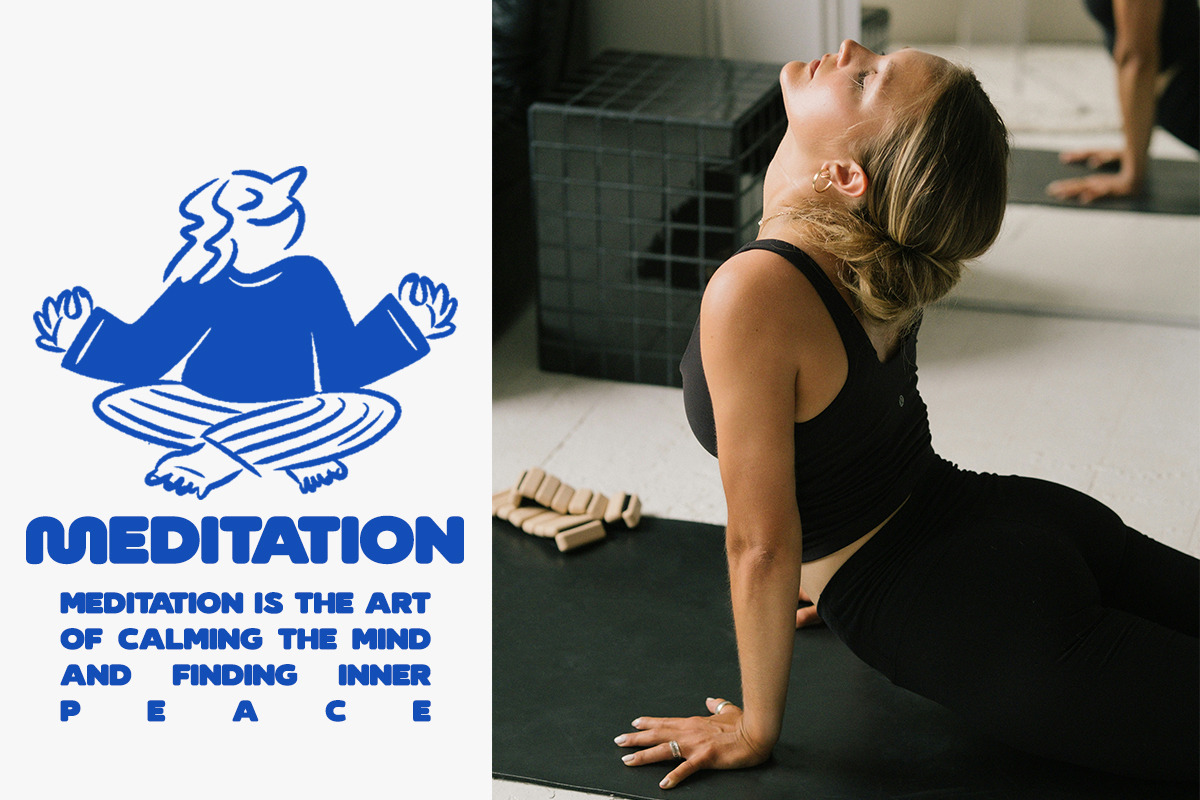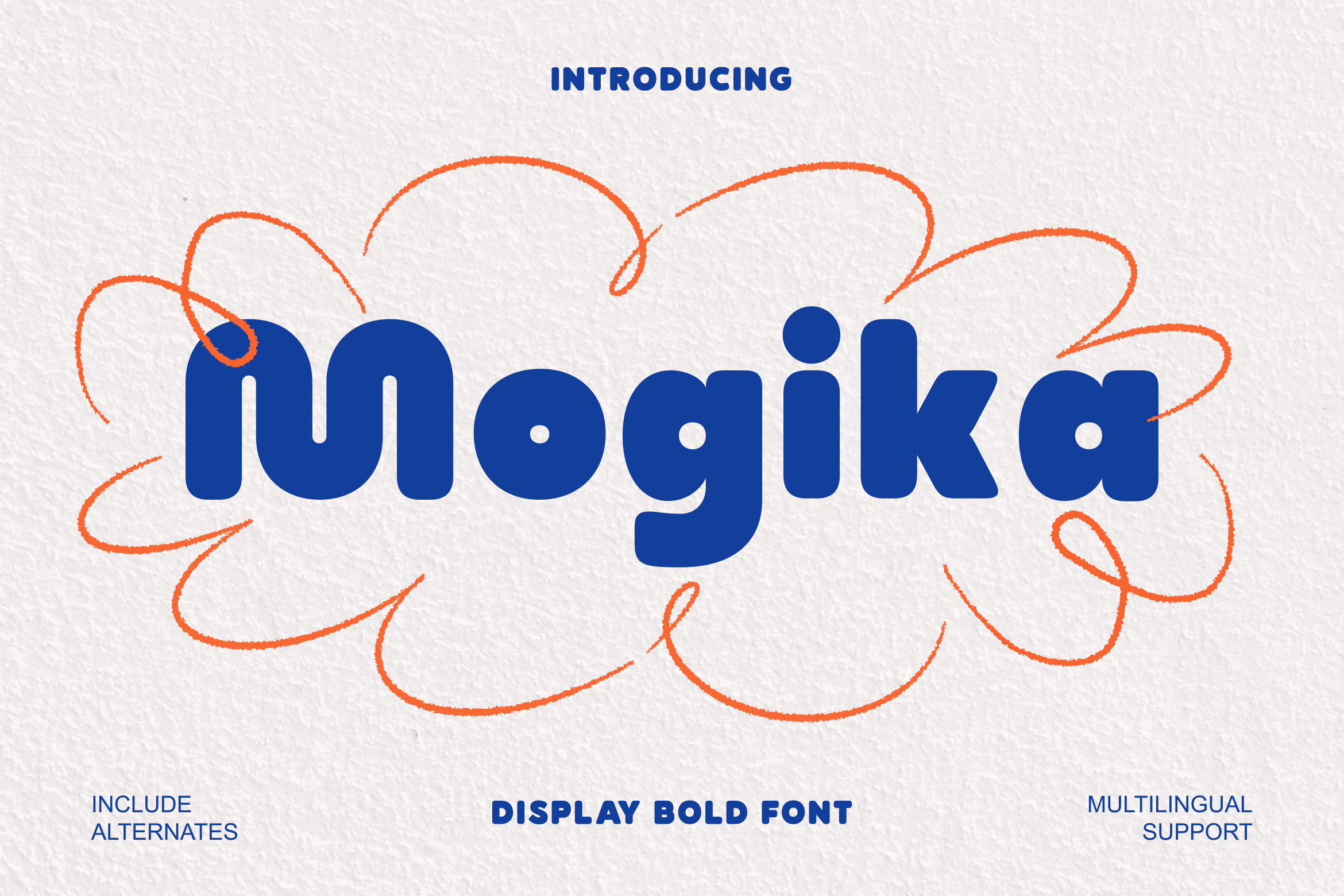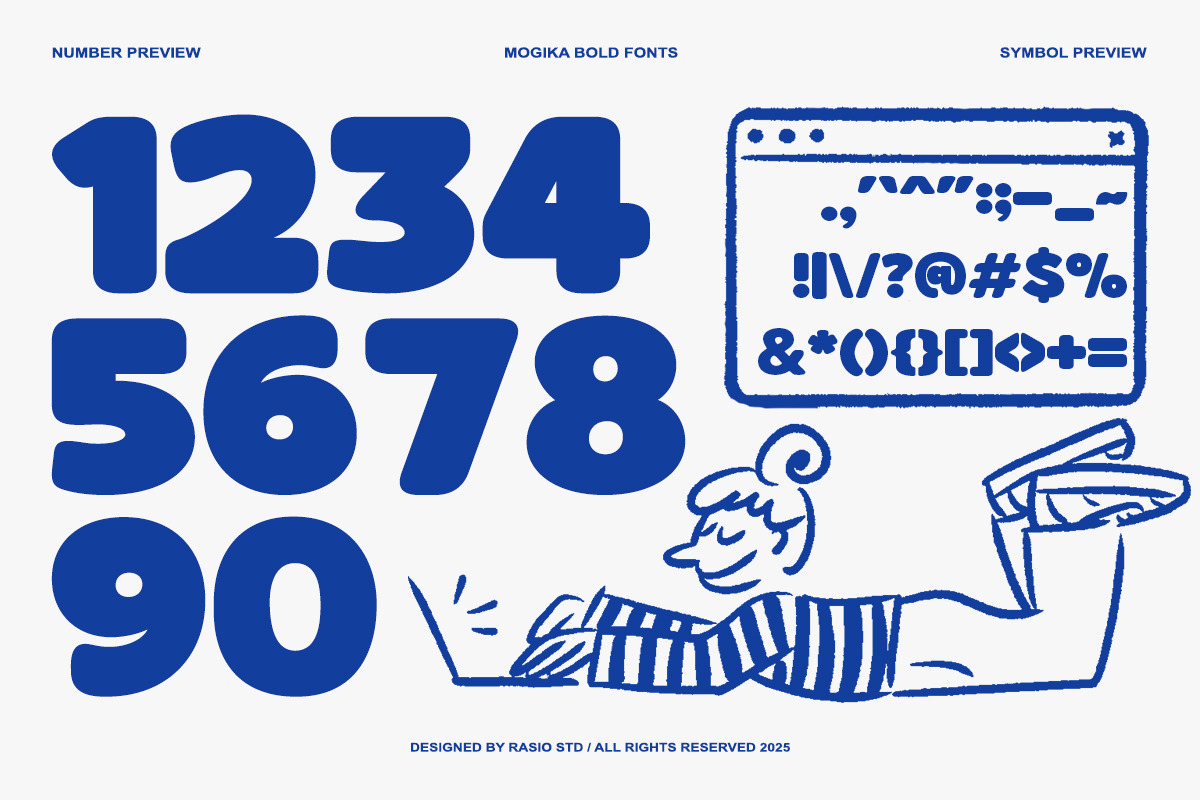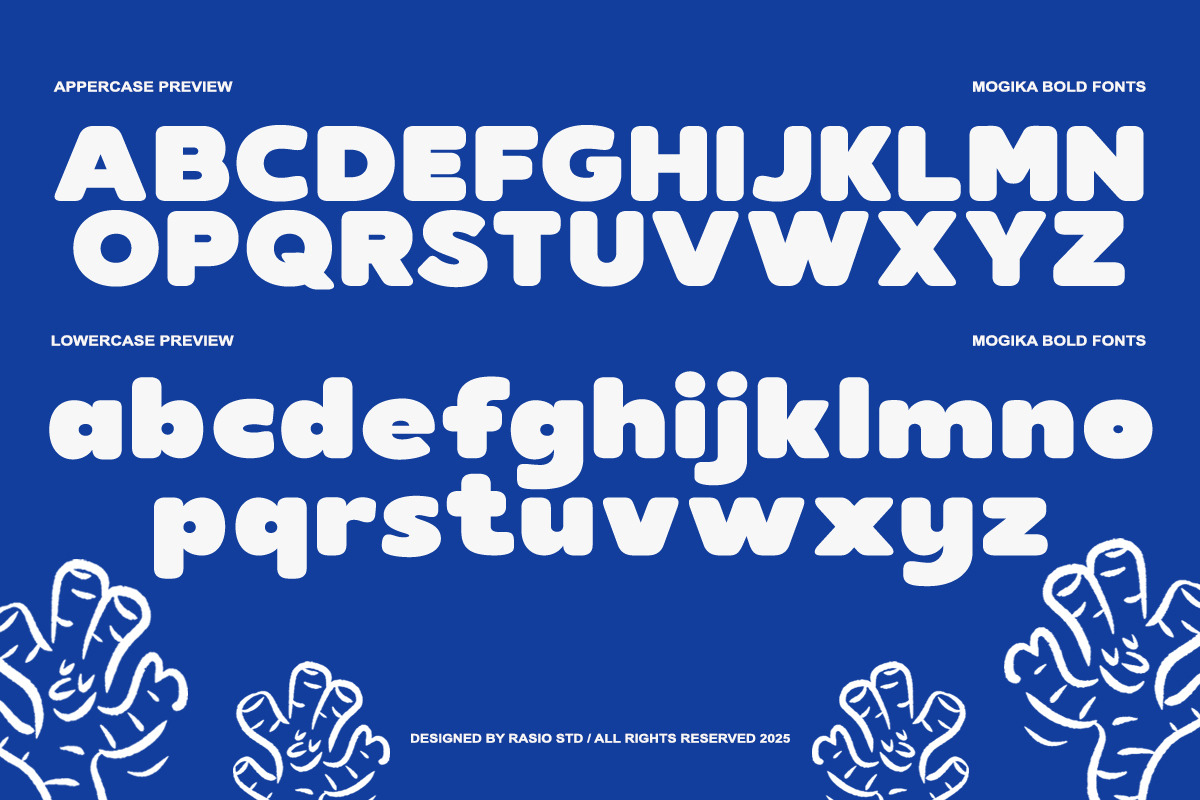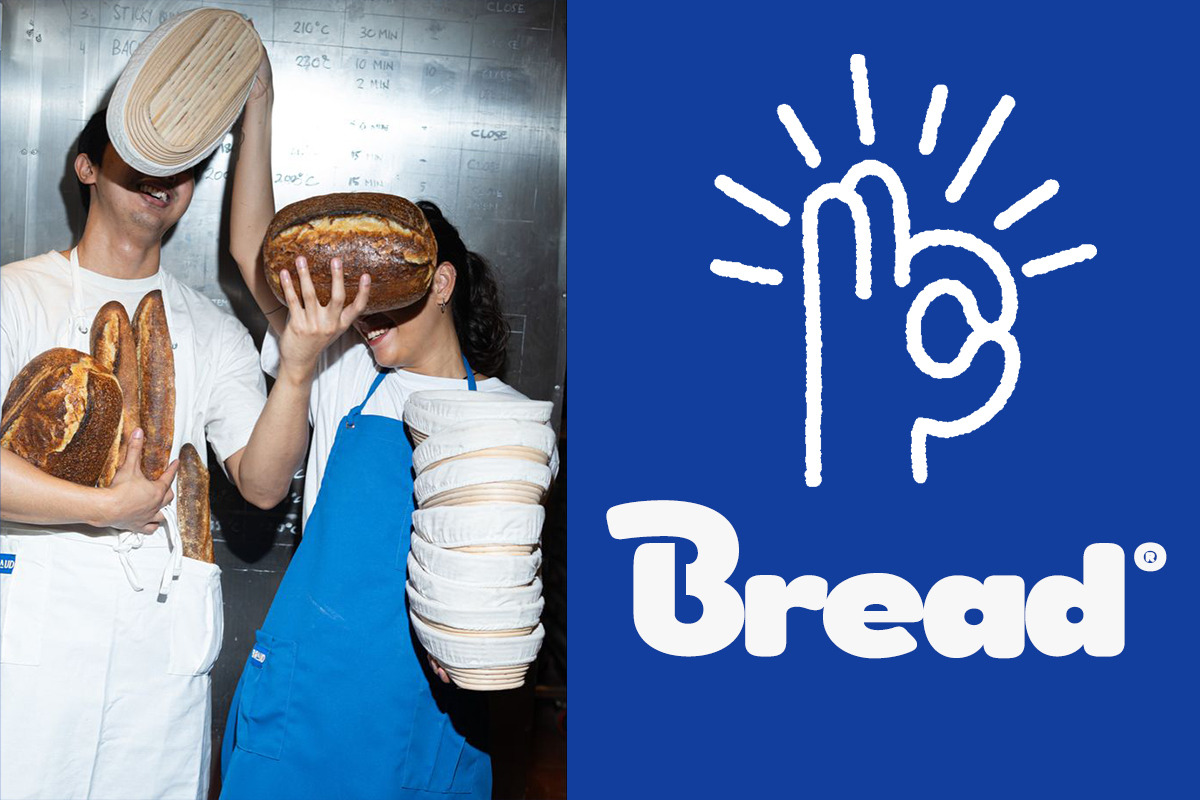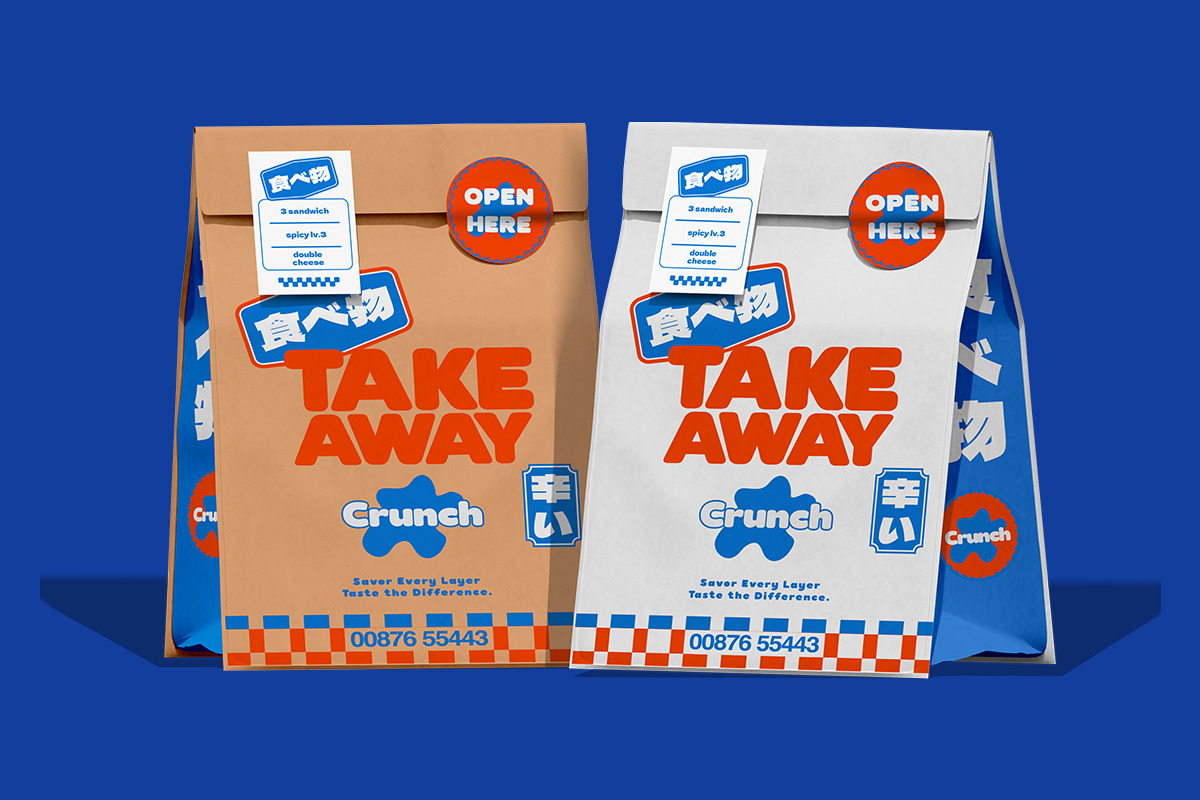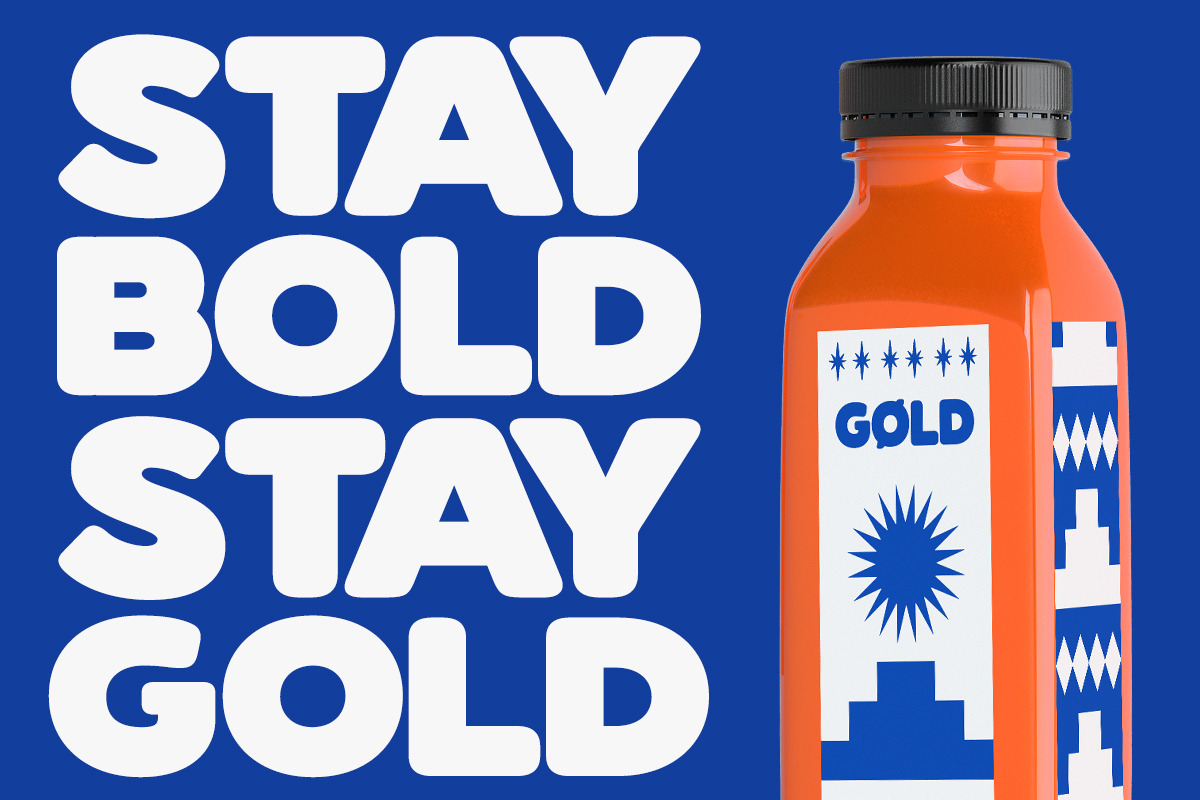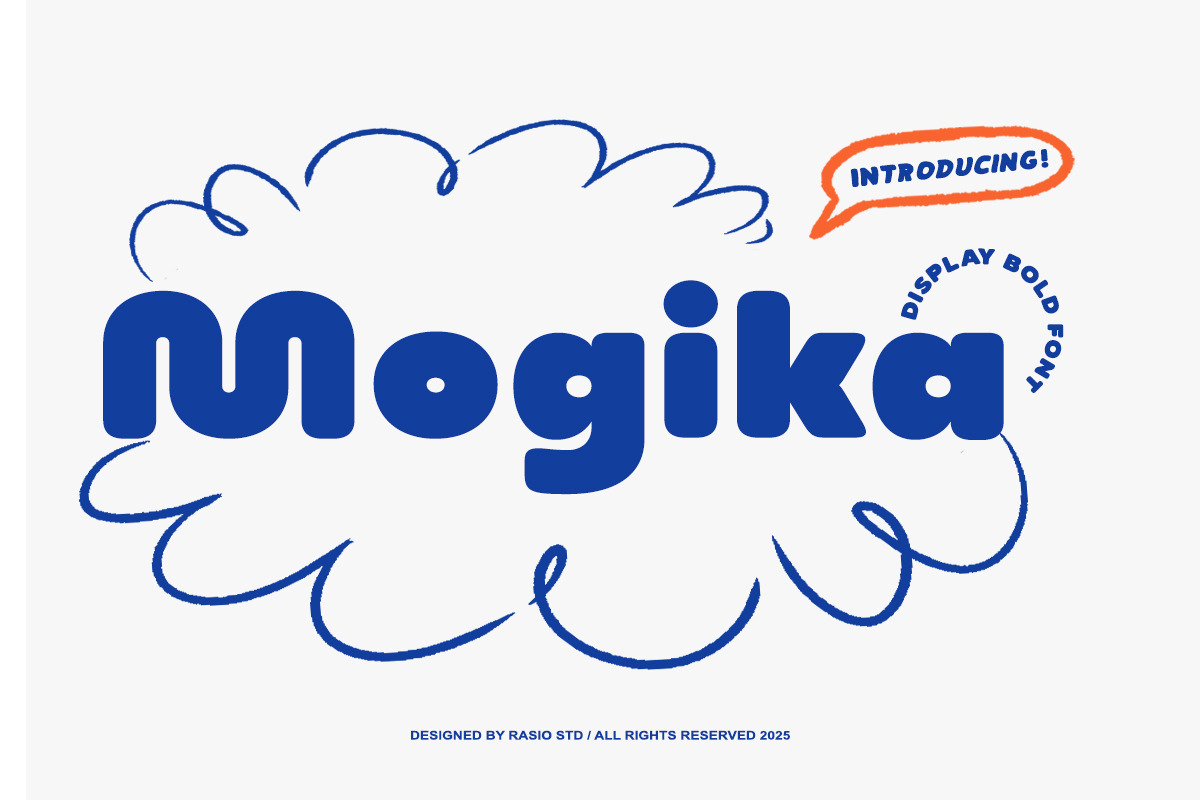
Mogika Display Bold Font
Mogika is a bold display font with a soft, rounded structure and cheerful personality. Designed to feel friendly, modern, and approachable, this typeface combines thick letterforms with smooth curves for maximum visual impact and readability. ts bubbly proportions and confident weight make it perfect for headlines, branding, and creative layouts that need warmth and strong presence. Mogika includes uppercase, lowercase, punctuation, and multilingual support, along with stylistic alternates to enhance versatility.
Mogika is perfect for branding projects, children-related designs, lifestyle brands, wellness campaigns, social media graphics, posters, packaging, café branding, yoga studios, creative agencies, and modern logo design. Its friendly and bold appearance makes it ideal for projects that want to feel warm, energetic, and visually engaging while staying clean and professional.
- Bold rounded display structure with soft, friendly proportions
- Smooth curved letterforms that create a warm and approachable tone
- Thick, confident strokes designed for strong visual impact
- Playful geometric construction with balanced character spacing
- Clear readability at large sizes, ideal for headlines and branding
- Brand identity projects that need a friendly, bold, and approachable voice
- Kids, lifestyle, and wellness branding with playful visual energy
- Poster designs, event graphics, and eye-catching headlines
- Product packaging that wants a fun and modern personality
- Social media content, YouTube thumbnails, digital campaigns that need strong impact